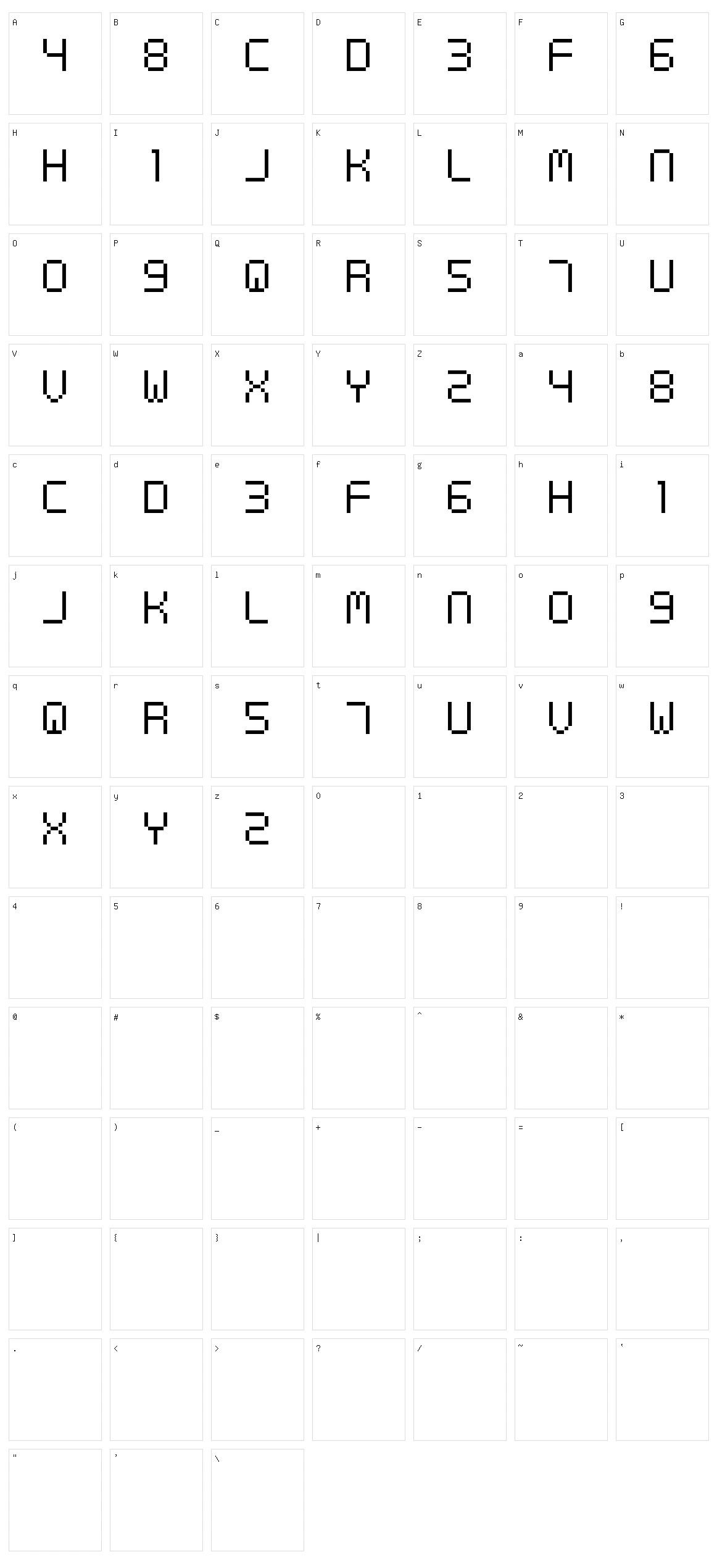
The free font Digital cognitive is carefully designed by Qbotype Fonts, showcasing a thoughtful balance of creativity and usability and falls under the Square font style. When you download the ZIP file, it contains only 4.93 KB of font files, making it lightweight and quick to download. Please review the license details below to understand permitted usage and distribution rights. If license information is not available, we recommend using this font for personal projects only or contacting the author directly for commercial usage permissions.